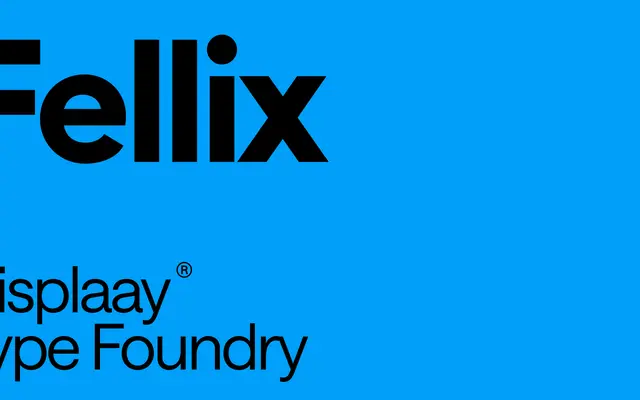
A geometric sans in 8 weights and 16 styles, built on pure geometry with straight terminals and a variable font spanning weight and slant axes.
Fellix draws from the Futura lineage, using pure geometric construction with straight terminals and smooth stroke connections throughout. The family runs from Thin to Black with matching italics across all weights, and a variable font covers both weight and slant axes for flexible use. Its clean, precise character suits editorial, branding and digital applications where a contemporary geometric sans is needed.
Fellix is built on pure geometry with straight terminals and smooth connections, placing it firmly in the geometric sans tradition. The foundry explicitly invokes the Futura legacy, reinforcing this classification.